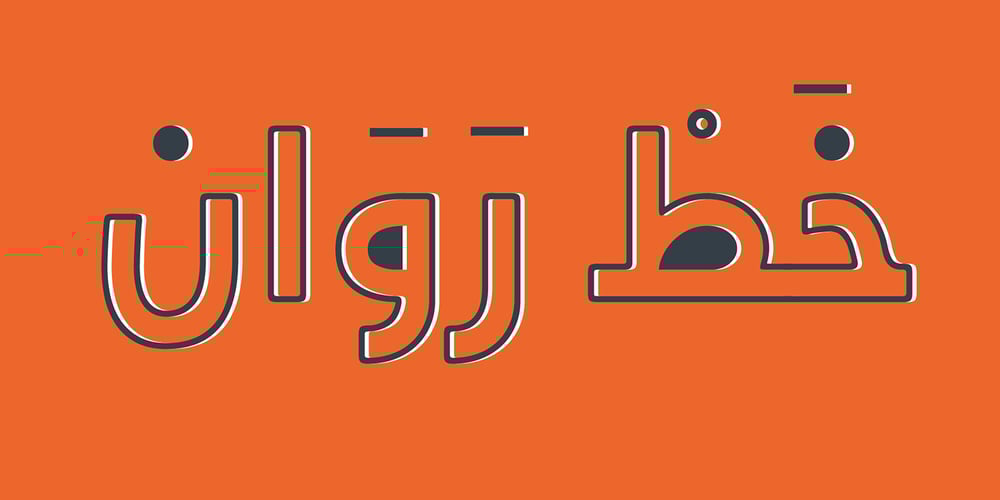
JH Rawan Font Family was designed by Joe Hatem and published by JH Fonts. JH Rawan contains 1 styles and family package options. JH Rawan is a modern geometric typeface; it is derived from JH Dima black; typical for corporate identity, headlines, branding & signage…